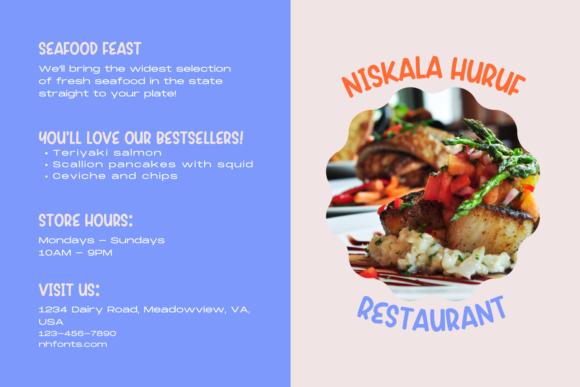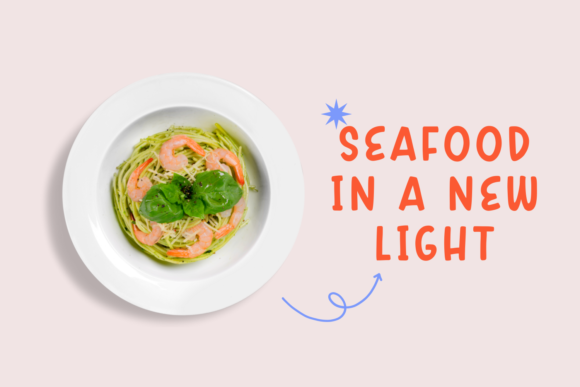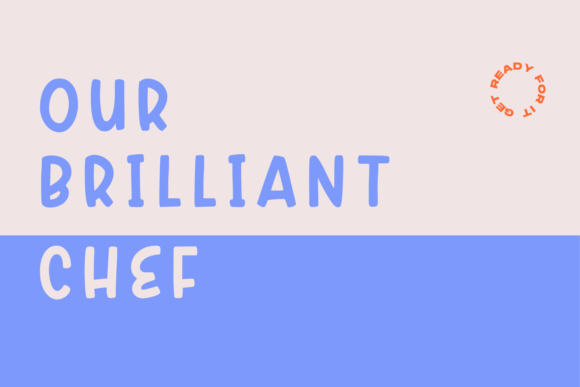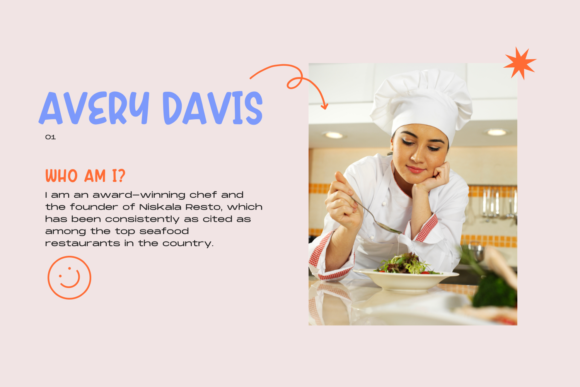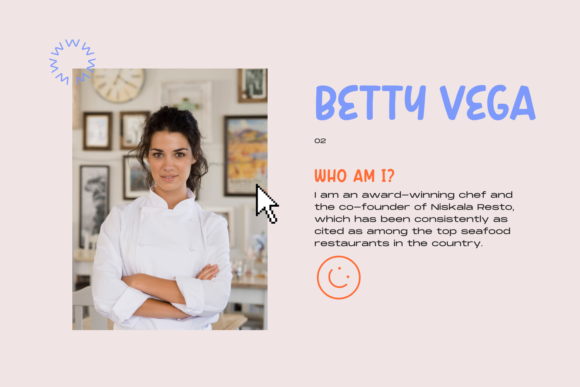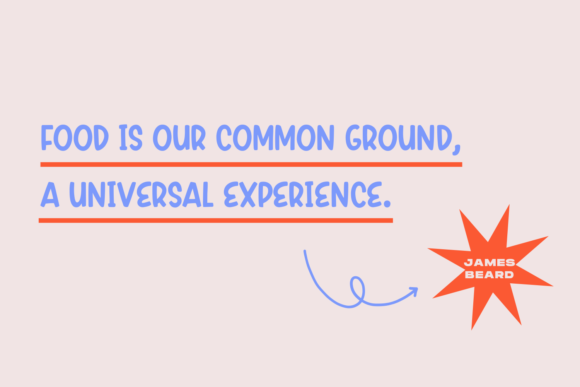
Introduction to Pretty Salmon Font
Have you ever stumbled upon a beautiful chalkboard quote in a home decor store and wished you could recreate that same charm in your own design project? For many designers, finding the perfect font to evoke a nostalgic and authentic feel can be a challenge. That’s where the Pretty Salmon Font comes in – a high-quality, display font designed specifically for adding a personal and realistic touch to your designs.
Whether you’re working on a creative project or teaching material, the Pretty Salmon Font is an excellent resource to have in your arsenal. Its transparent background and authentic look make it perfect for adding a vintage flair to your designs. And the best part? This free download is available to designers of all levels, making it a valuable addition to any design library.
Key Features of Pretty Salmon Font
- High-quality design resource suitable for creative projects, offering a unique and stylish look.
- Designed to be versatile, making it suitable for a wide range of creative projects, from digital art to print media.
- Unique characteristics include a bold, modern design and a wide range of character sets, making it perfect for designers seeking a distinctive look.
Honest Review: Pretty Salmon Font
I recently stumbled upon the Pretty Salmon Font and I must say, it’s a delightful addition to any design project. As a designer, I’m always on the lookout for high-quality fonts that can elevate my creative work. This font definitely delivers.
What works well: ✨ The font’s unique salmon-inspired color scheme is instantly eye-catching, making it perfect for projects that require a pop of color. The font’s modern and playful feel also makes it suitable for a wide range of creative projects, from logos to social media graphics.
However, there are some limitations: ⚠️ The font may not be suitable for projects that require a more formal or traditional look. Additionally, the font’s unique color scheme may not be to everyone’s taste.
Overall, I’m impressed with the Pretty Salmon Font. It’s a great addition to any design resource library and I’d definitely recommend it to fellow designers looking for a fun and creative font to spice up their projects.
Pretty Salmon Font is a high-quality design resource ideal for creative projects requiring a unique touch. With its transparent background, this font is versatile and easy to use in various design applications.
To get the most out of Pretty Salmon Font, use it in combination with other design elements to create visually appealing graphics. Experiment with different font sizes, colors, and arrangements to achieve the desired effect.
Pretty Salmon Font is suitable for various creative projects, including:
- Printable art and wall decor